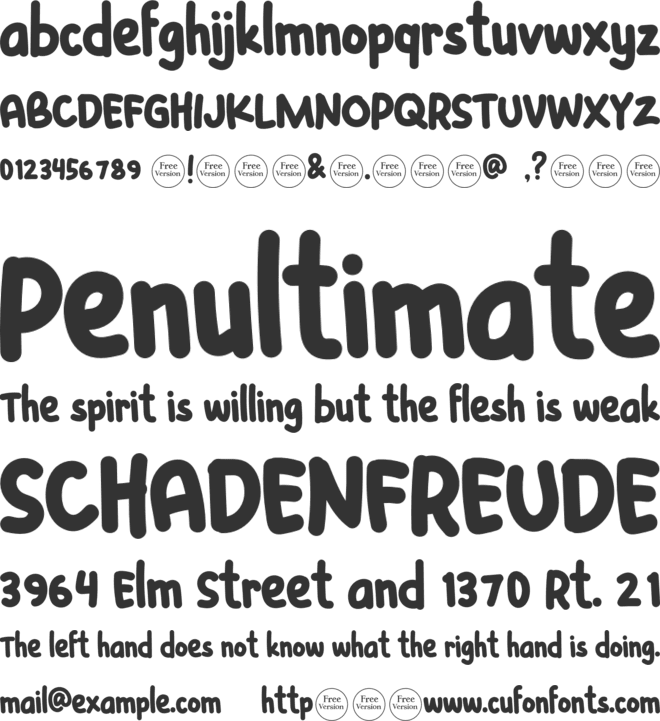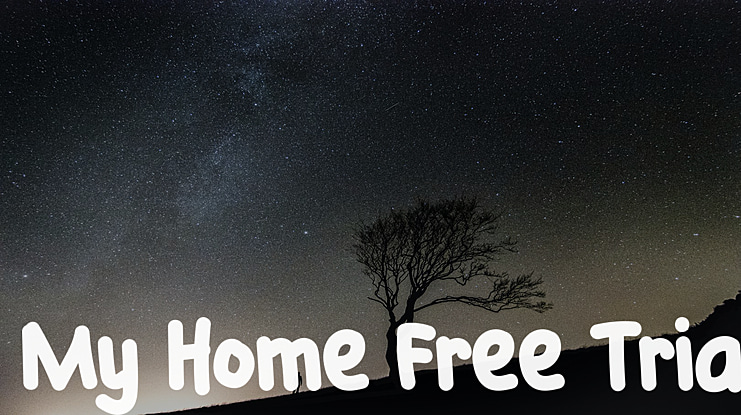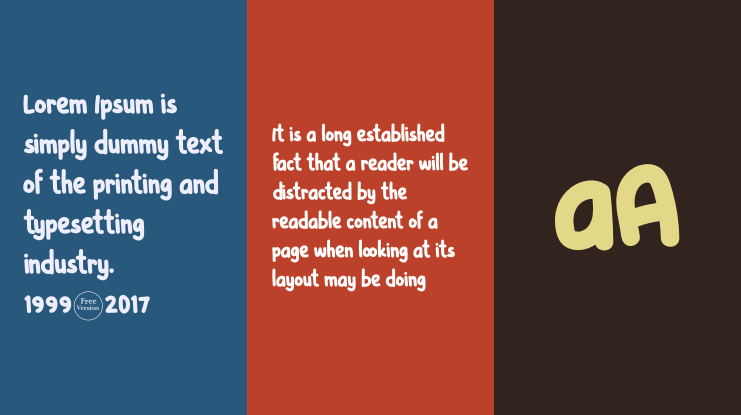
My Home Free Trial Font
My Home is a Fun Handwritten Font, Perfectly suitable for creating quotes, kids book, t-shirts, poster, mockup, and many more. Full Version Download Here :